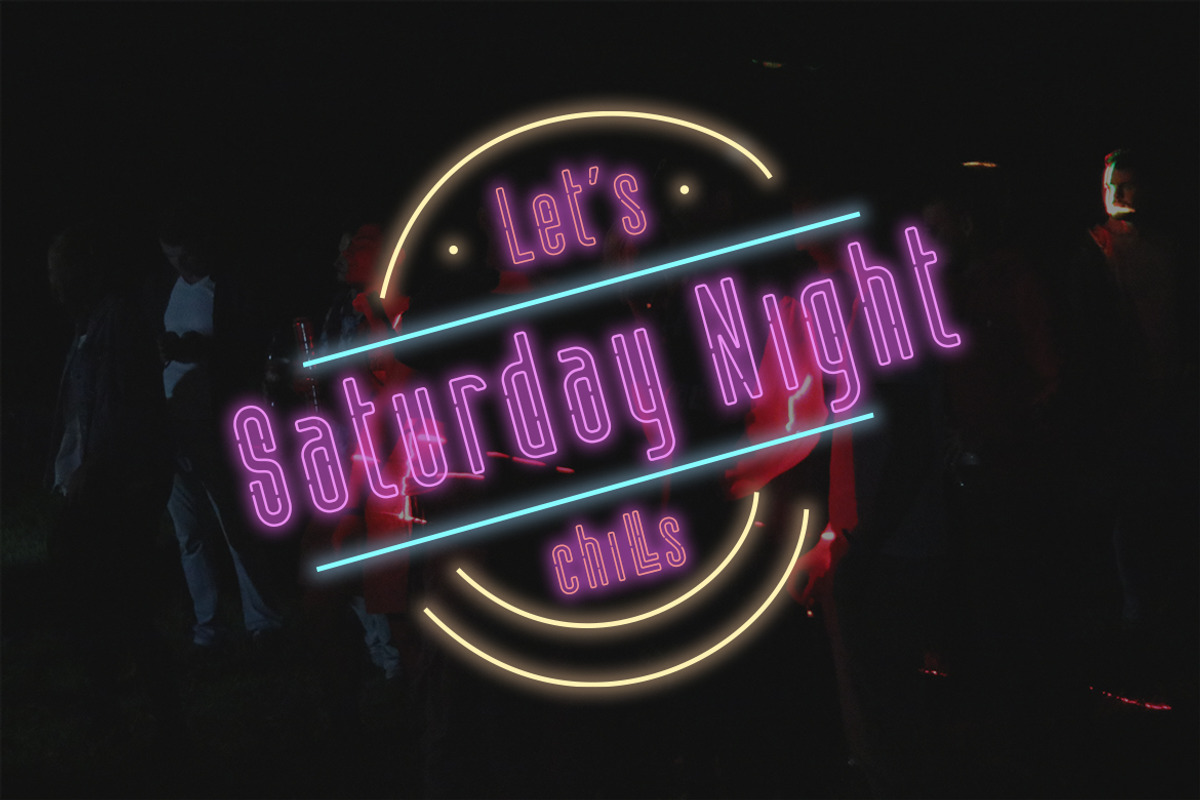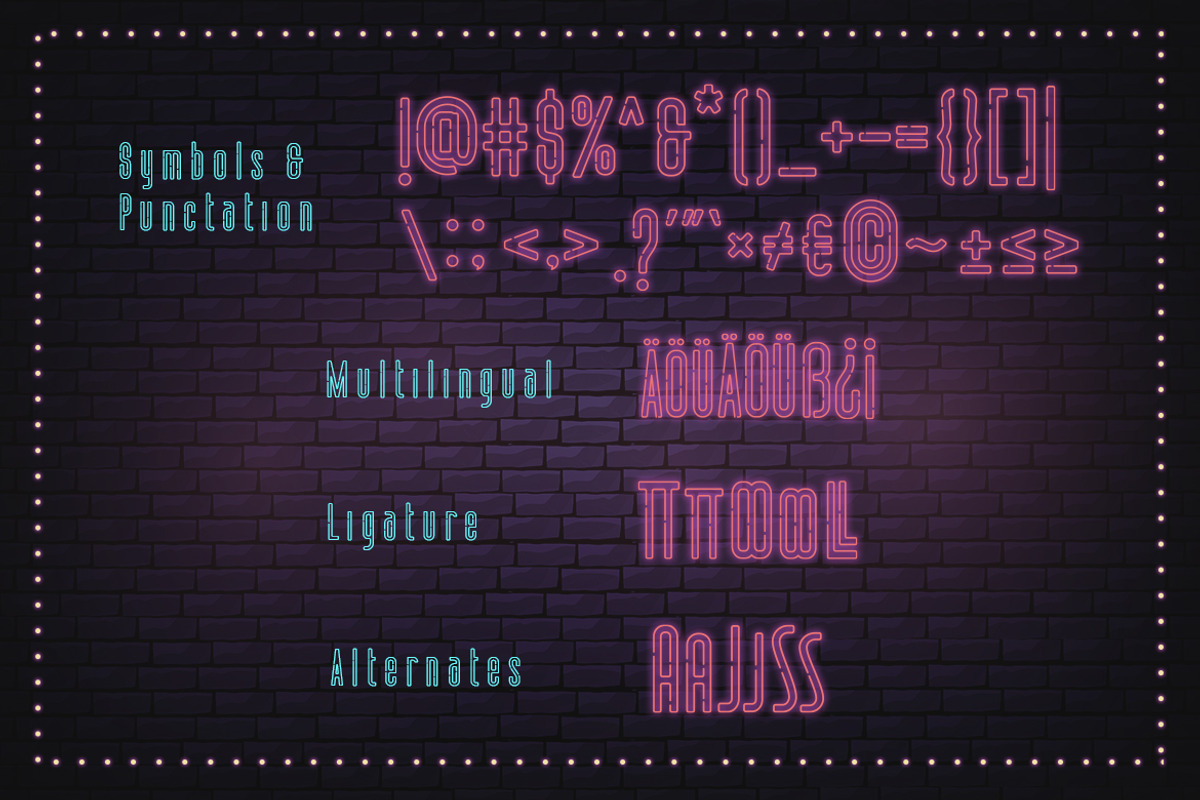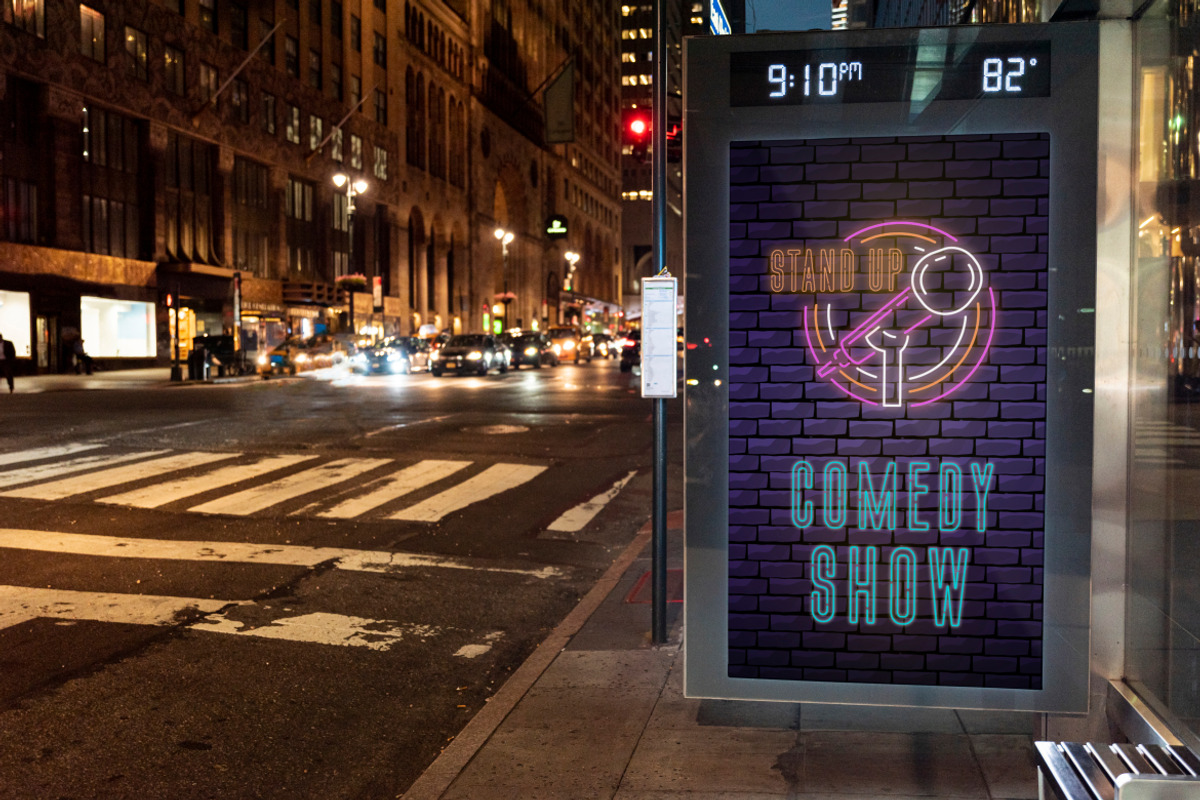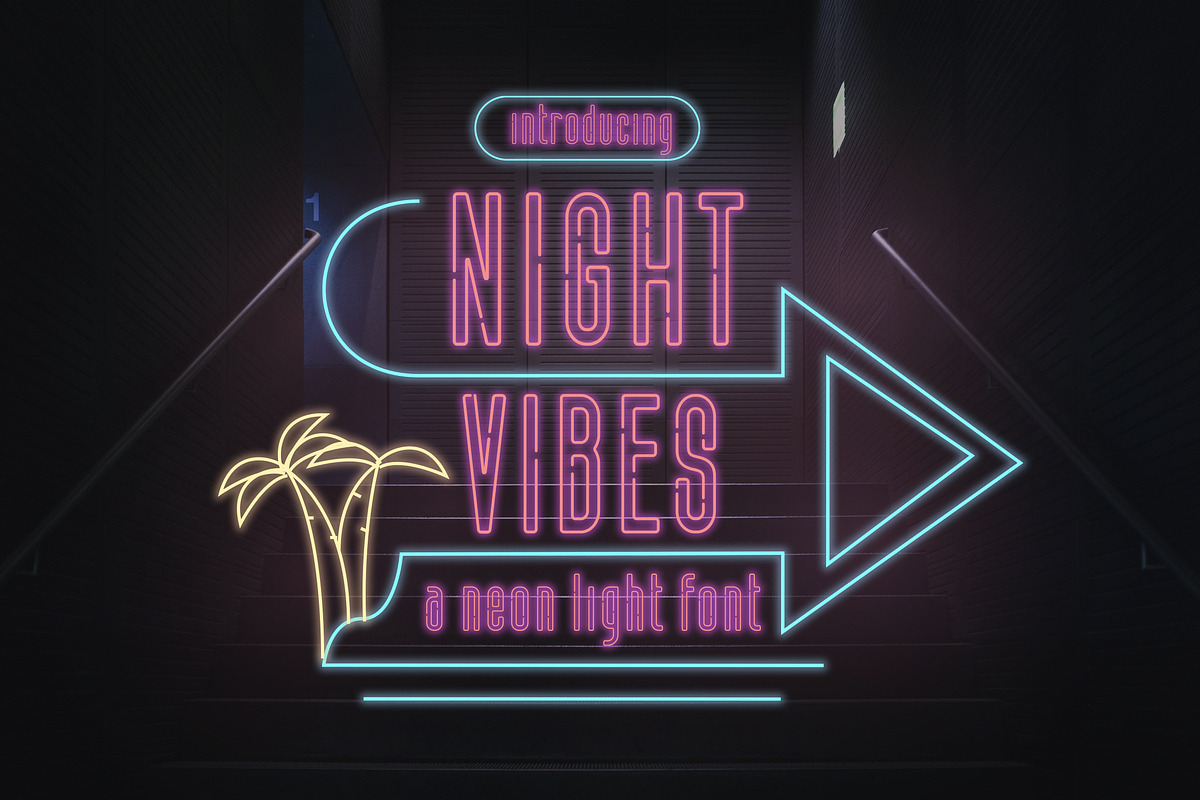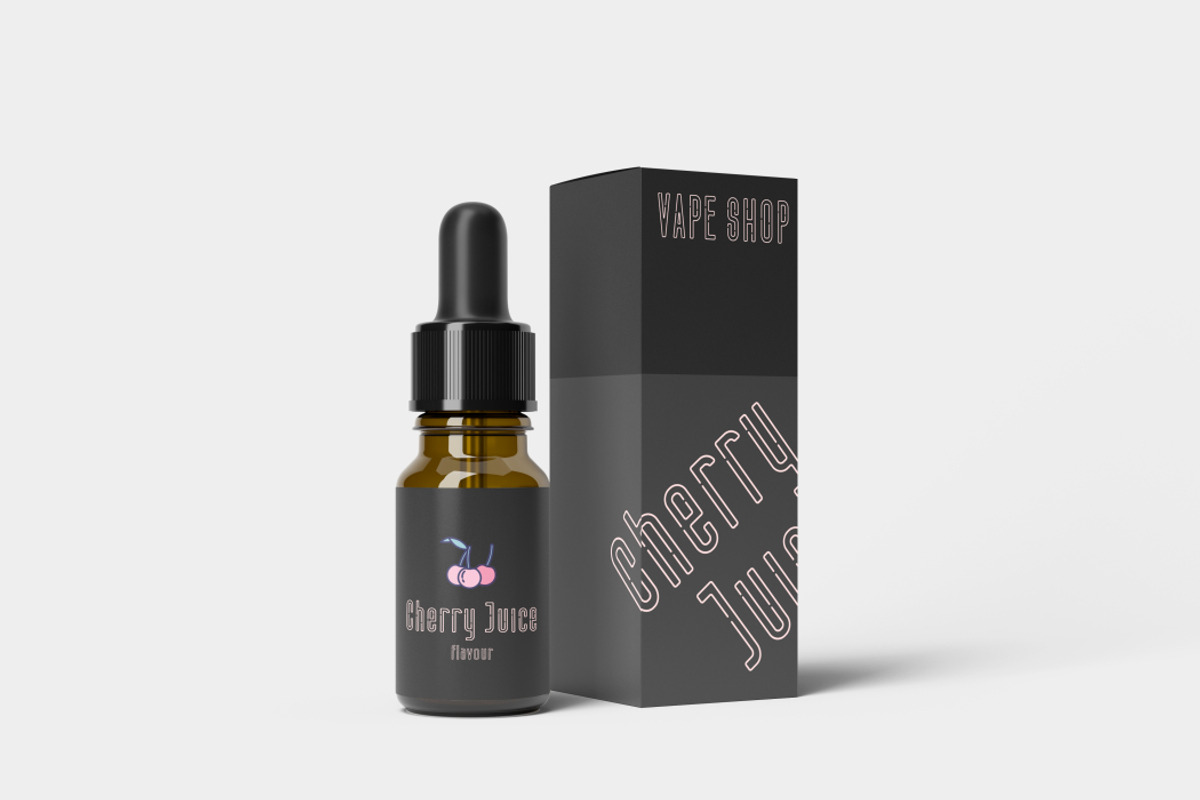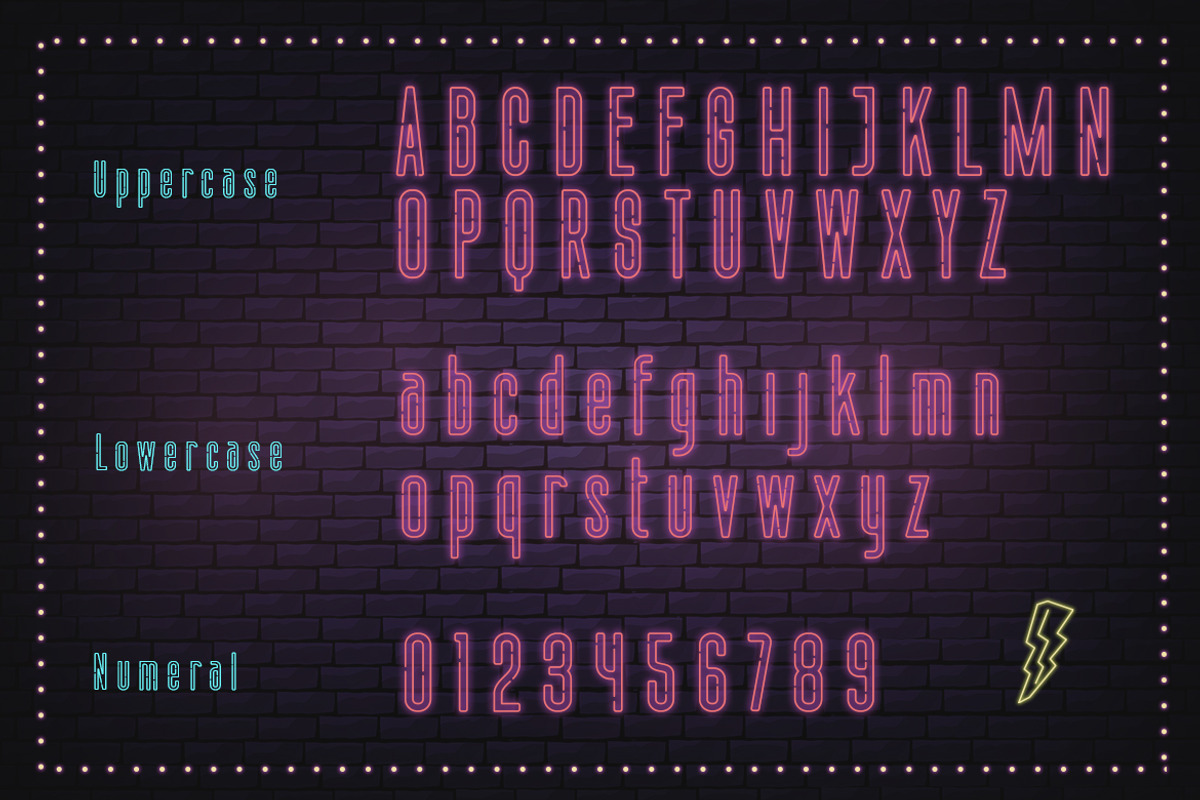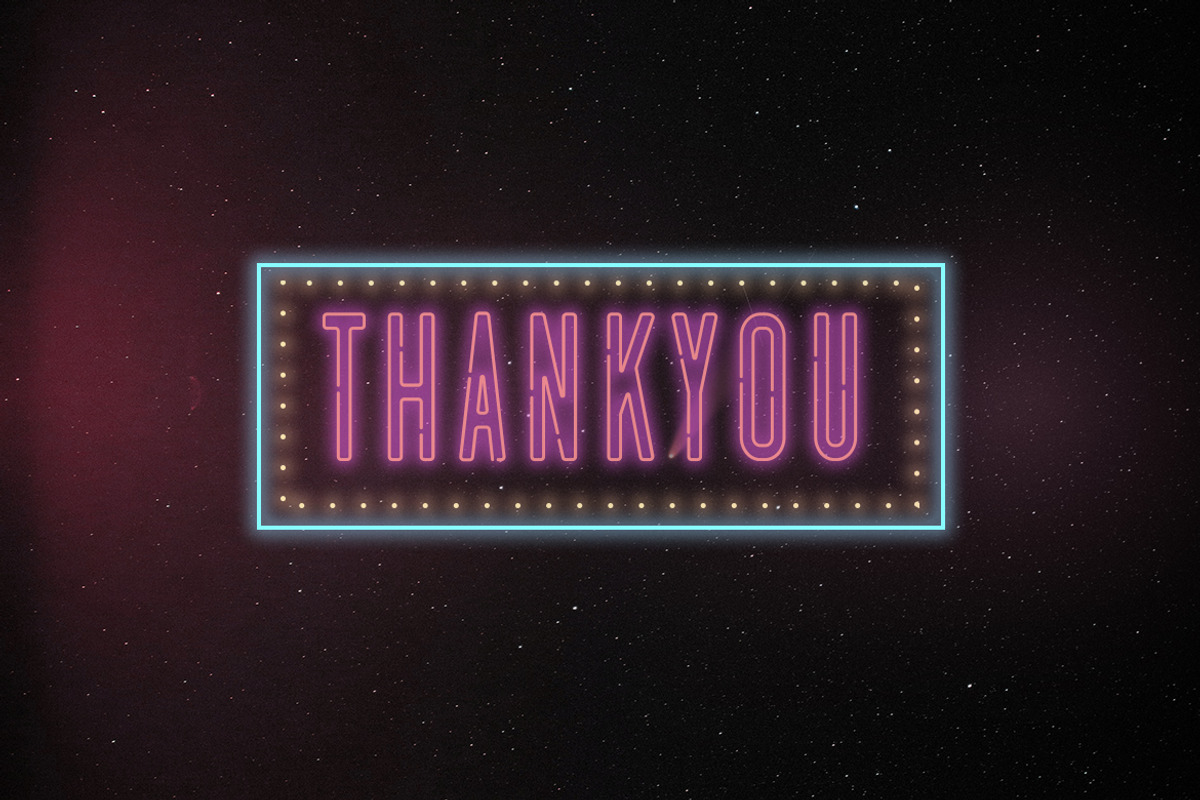
Night Vibes - Neon Light Font
Night Vibes is a modern Neon Light Font, Suitable for modern night theme. It’s great for your store, branding, quote and title for magazine, film, or product design.